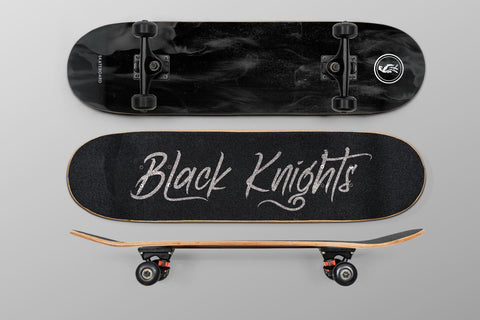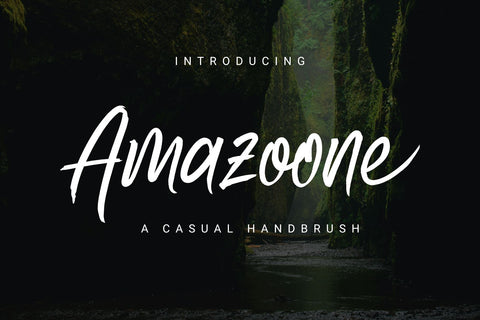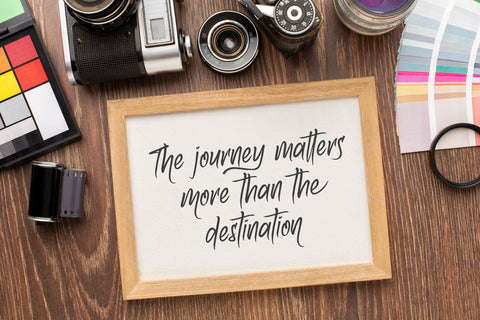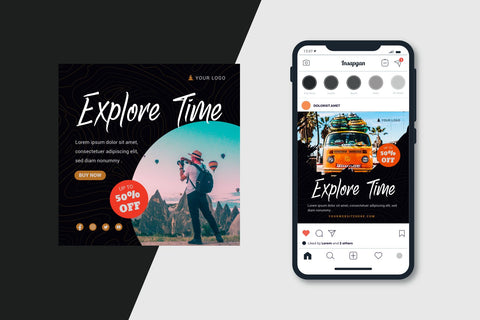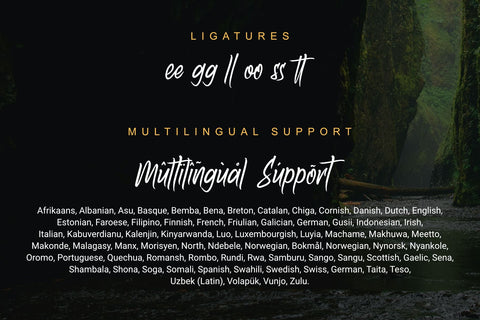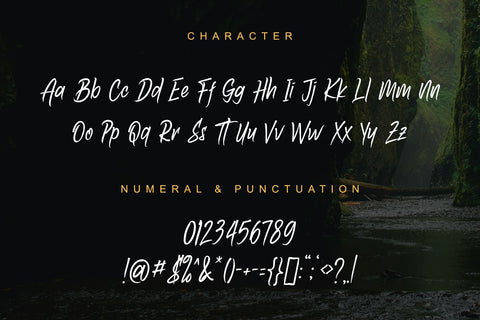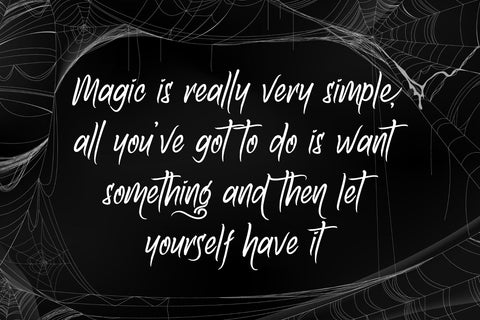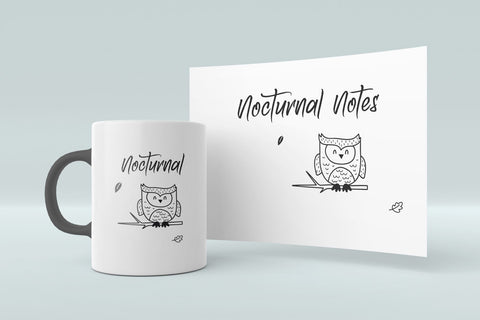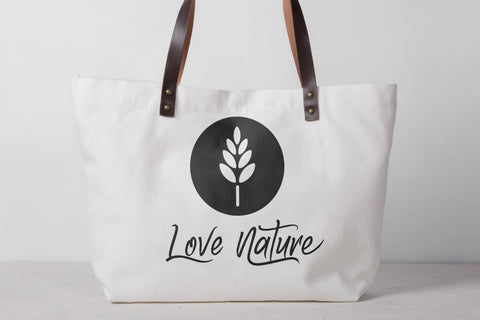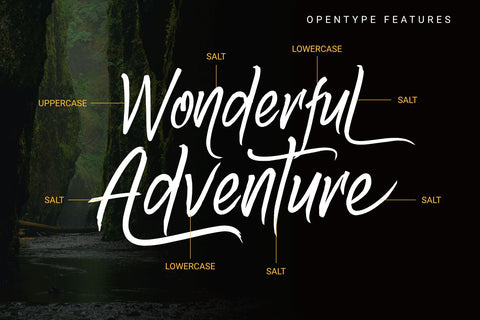
Amazoone - Handbrush
Ready for your next cinematic and adventurous journey?
Introducing Amazoone, a hand-drawn brush font made for your amazing adventure story to tell. It’s a beautiful and cinematic-look choice for your signature style logos, product branding, quotes, headline titles, travel-themed title, Instagram post headline design, and blog/social media posts.
Amazoone includes OTF/TTF format, standard glyphs, a full alternate set of lowercase, included as its own separate fonts. Use the alternate character for a distinctive text layout to make your typography looks more dynamic.
Amazoone also includes 6 ligatures, these double letter combinations will help the letters connect and flow more dynamic. The ligatures will automatically generate when using the Amazoone font with most software. Please get in touch if you need any help with these.